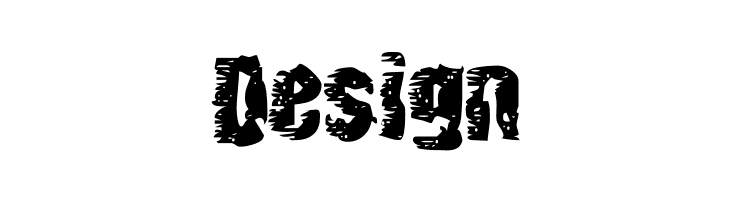
Wave Warrior Semi-Leftalic Font
- Font: Wave Warrior Semi-Leftalic
( Fonts by Ben Nathan )
A bold, distressed font with a rough, textured appearance ideal for grunge or horror themes.